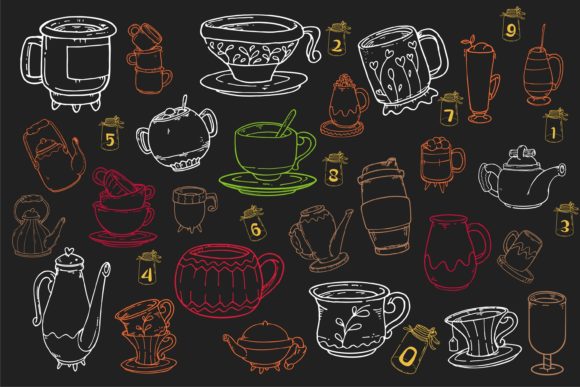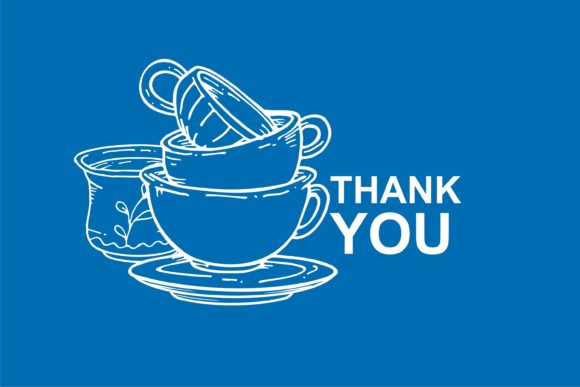
Introducing the Classic Teapot Font: A Timeless Addition to Your Typography Collection
Are you a designer, crafter, or typography enthusiast looking for a unique and versatile font to elevate your creative projects? Look no further than the Classic Teapot Font, a cool and useful dingbats font that’s sure to become a staple in your font library.
The Charm of Classic Teapot Font
The Classic Teapot Font is a one-of-a-kind dingbats font that features an adorable and intricate design of teapots, complete with delicate handles, spouts, and lids. The font’s classic and elegant aesthetic makes it perfect for a wide range of creative projects, from vintage-inspired crafts to modern digital designs.
Why You’ll Love Classic Teapot Font
So, what makes the Classic Teapot Font so special? Here are just a few reasons why you’ll love adding this font to your collection:
- Unique and eye-catching design: The Classic Teapot Font features a distinctive and charming design that’s sure to grab attention and add a touch of personality to your projects.
- Versatile and adaptable: Whether you’re creating a vintage-inspired craft or a modern digital design, this font is versatile enough to fit any style or theme.
- Scalable and legible: This font is designed to be clear and legible, even at small sizes, making it perfect for use in a variety of applications.
How to Use Classic Teapot Font
The Classic Teapot Font is a versatile font that can be used in a wide range of creative projects, including:
- Crafting and scrapbooking: Add a touch of elegance and sophistication to your handmade crafts and scrapbook pages with this beautiful font.
- Digital design: Use the Classic Teapot Font to add a unique and eye-catching element to your digital designs, such as social media graphics, blog posts, and website headers.
- Stationery and invitations: Create beautiful and elegant stationery and invitations with this font, perfect for special occasions like weddings, baby showers, and tea parties.
- Packaging and branding: Use the Classic Teapot Font to add a touch of whimsy and personality to your packaging and branding materials, such as labels, stickers, and business cards.
Tips and Tricks for Getting the Most Out of Classic Teapot Font
Here are a few tips and tricks to help you get the most out of the Classic Teapot Font:
- Experiment with different sizes and colors: Play around with different sizes and colors to find the perfect combination for your project.
- Combine with other fonts: Pair the Classic Teapot Font with other fonts to create a unique and eye-catching design.
- Use as a design element: Use the teapot characters as a design element to add visual interest to your project.
The Classic Teapot Font is a timeless and versatile addition to any font library. With its unique and eye-catching design, ease of use, and scalability, this font is perfect for designers, crafters, and typography enthusiasts of all skill levels. Whether you’re creating a vintage-inspired craft or a modern digital design, the Classic Teapot Font is sure to elevate your creative projects and add a touch of elegance and sophistication.